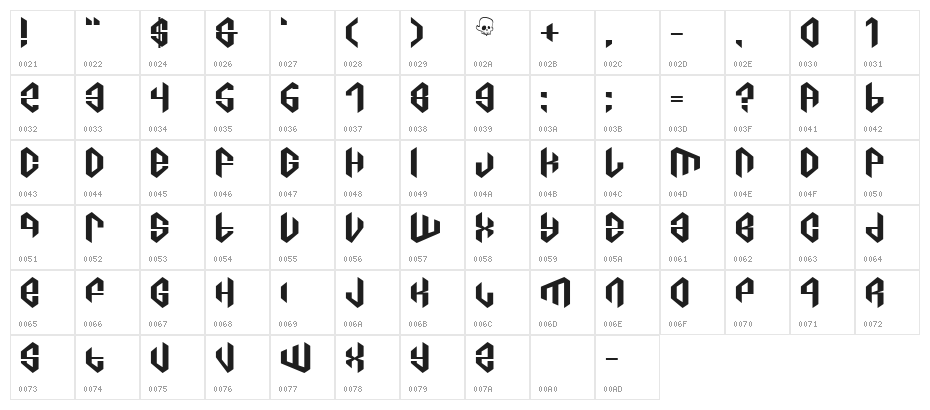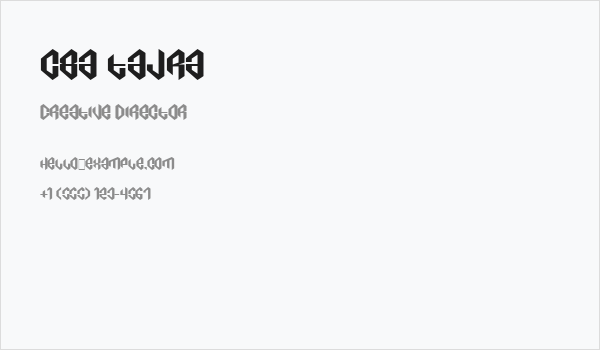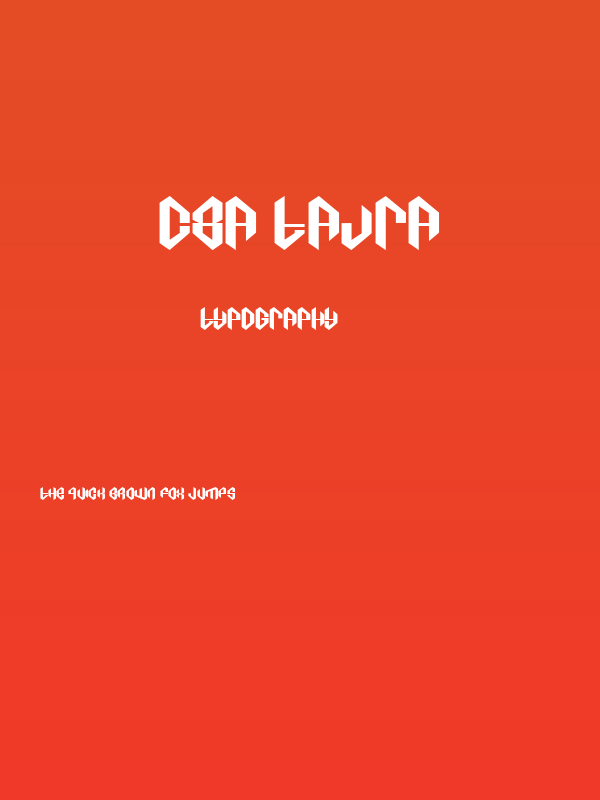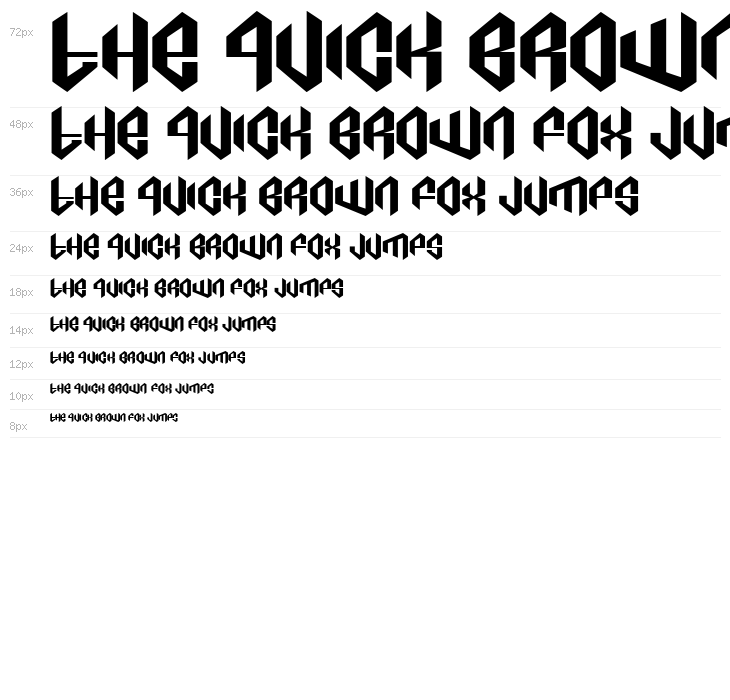
c8a tajra Font
Cre8or Artwork - Lukas Kohler
| Projets proposés | Ideal for branding, posters, video game graphics, and any project needing a modern, edgy look. |